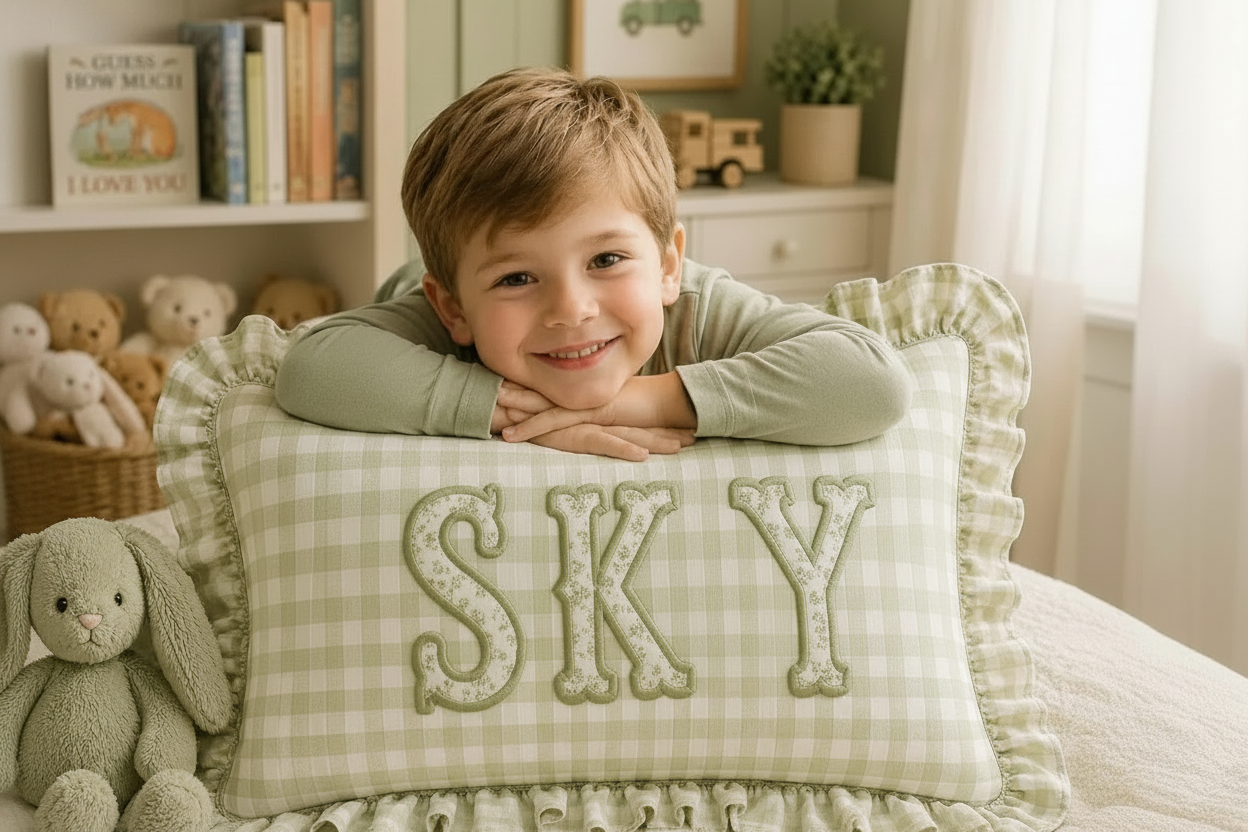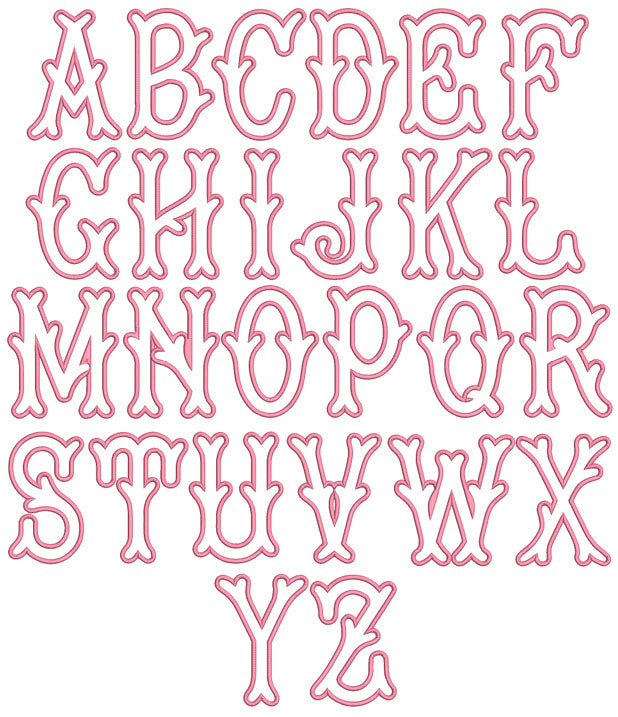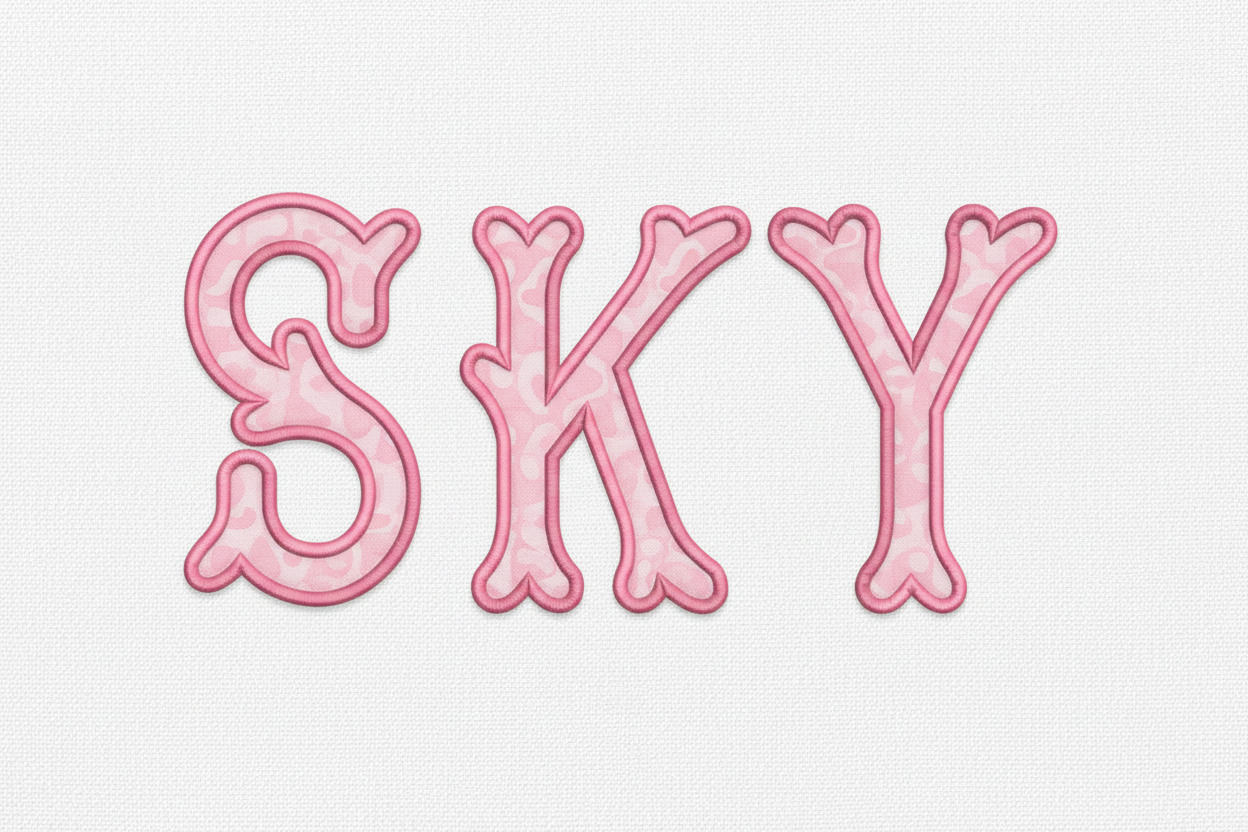
Introducing Fishtail Applique Font — a charming and whimsical embroidery font featuring elegant fishtail-style letters perfect for personalized gifts, name pillows, tote bags, baby items, and so much more.
Each letter is beautifully designed with a decorative fishtail outline, giving your projects a boutique, handcrafted look that stands out.
- Style: Fishtail Applique
- Characters: Full A–Z uppercase alphabet